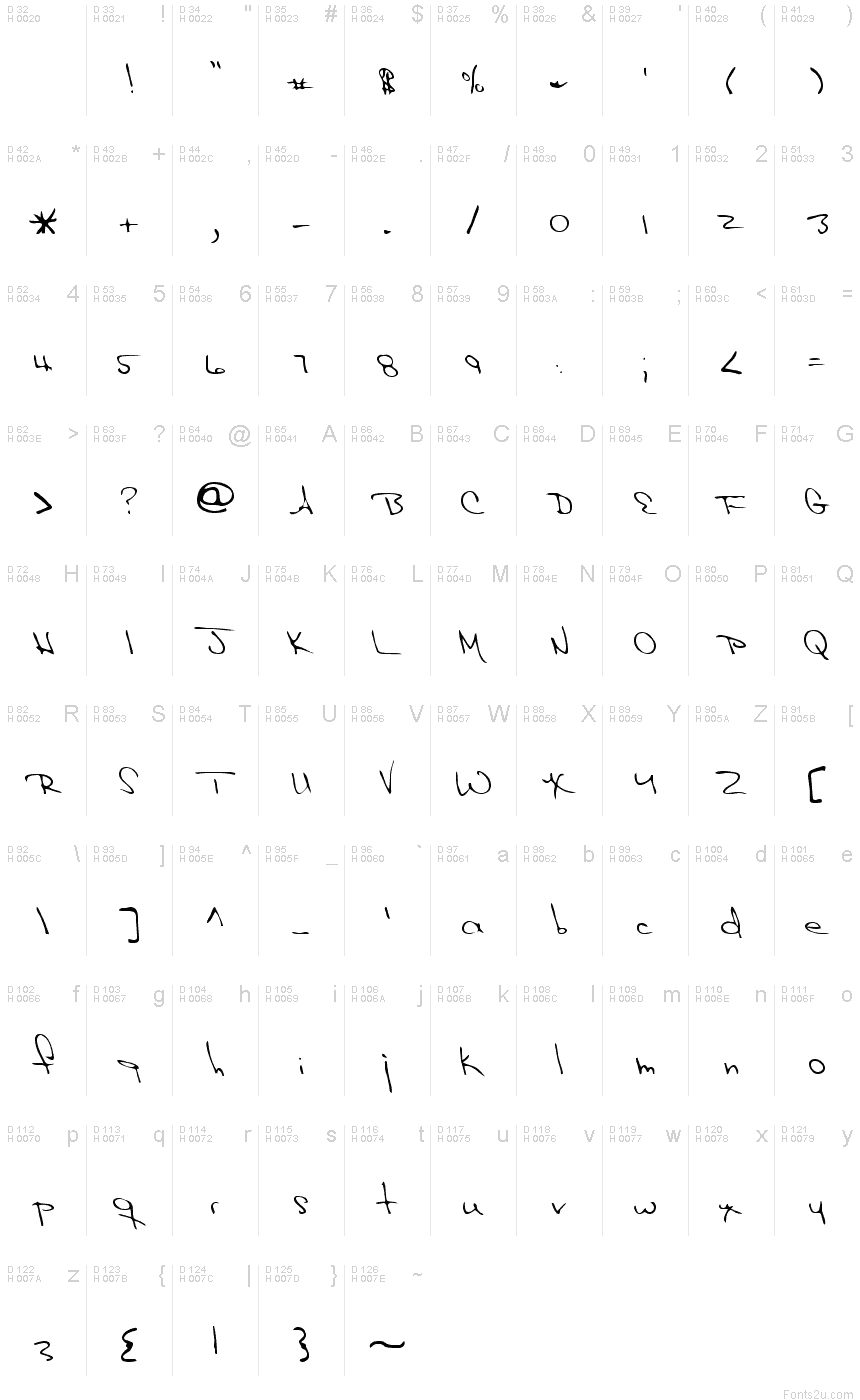
Hak Regular
Hak font is a free handwritten typeface with a strange, slanted energy that looks like it’s been scratched quickly with a thick ink pen. Letters lean and twist, with long, tapering strokes and unexpected bends that give words a restless, almost magical motion. It feels a bit wild but still legible, so you get character and attitude without losing clarity.
Using Hak, you can bring a witchy, fantasy edge to book covers, band posters, gothic event flyers, game titles, zines, and characterful social media graphics. This free font really shines when set large, where its swooping curves and sharp angles can breathe. Try pairing Hak with a clean geometric sans for body copy to ground its dramatic handwriting and keep layouts readable.